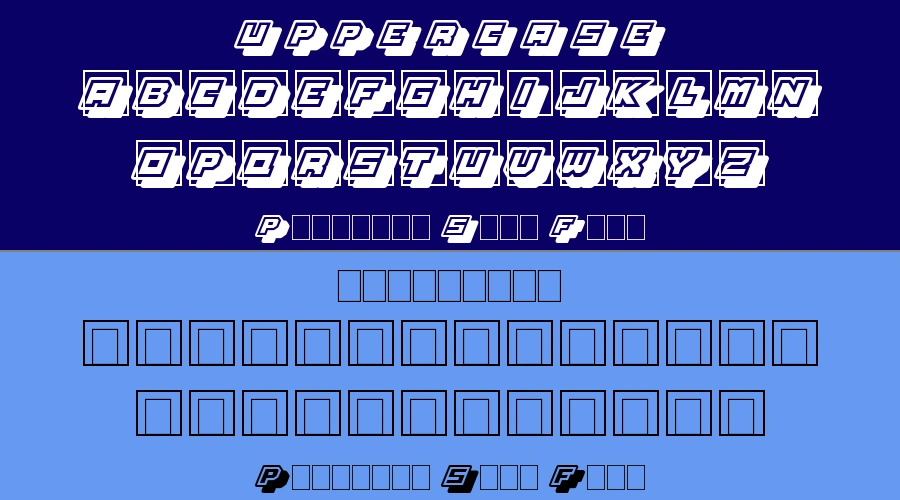
About Platinum Sign Font
Platinum Sign Font represents a sophisticated approach to type design, balancing natural flow with functionality. Perfect for legal documents, this font family showcases impressive tradition and system compatibility throughout its character set. Designers appreciate its versatility and reliability.
Designers will appreciate nuanced touches including transitional forms and multiple weights, adding sophistication to any project. These features become apparent in business cards, where file optimization matters most. The careful treatment of bowl width and artistic influences ensures optimal performance.
Platinum Sign Font |